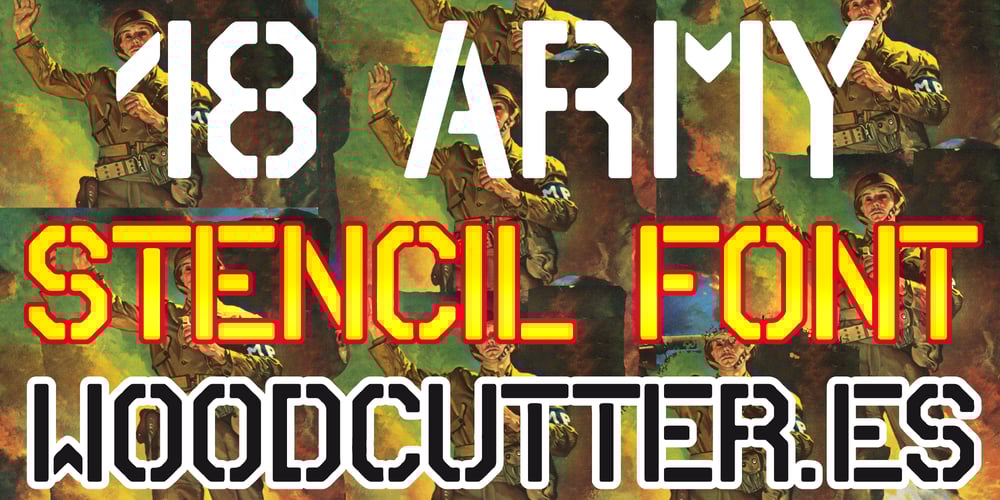
18 Army Font Family was designed by Jordi Manero and published by Woodcutter. 18 Army contains 1 styles and family package options. “18 Army” is a military-style stencil typeface in uppercase, featuring rectangular and thin lines that evoke the markings on army equipment and vehicles. Its structured and precise design conveys a sense of discipline and rigor, making it ideal for projects aiming to evoke a military or war theme. Perfect for posters, labels, and graphic designs that require a robust and authoritative touch, “18 Army” ensures both functionality and style. This typeface guarantees readability and significant visual impact, fitting seamlessly into various design contexts.